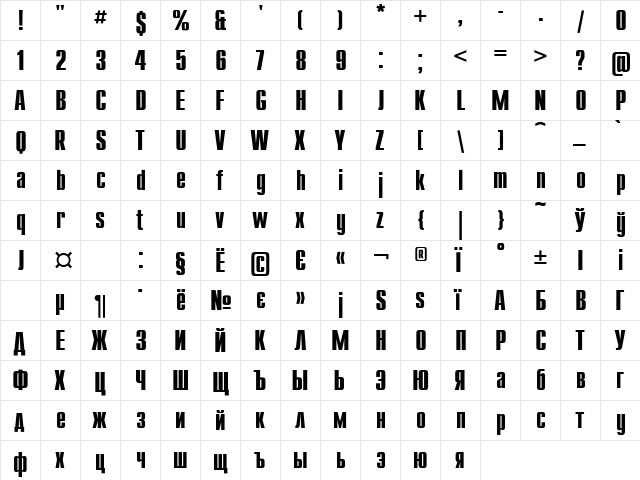
UkrainianCompact Bold Font Preview
Design Context for UkrainianCompact Typeface
UkrainianCompact takes a measured approach to typography — its balanced proportions and neutral character make it a reliable workhorse for both digital and print work. The heavy weight commands attention and anchors typographic hierarchies. Its narrow stance lets it pack a punch even in space-constrained designs.